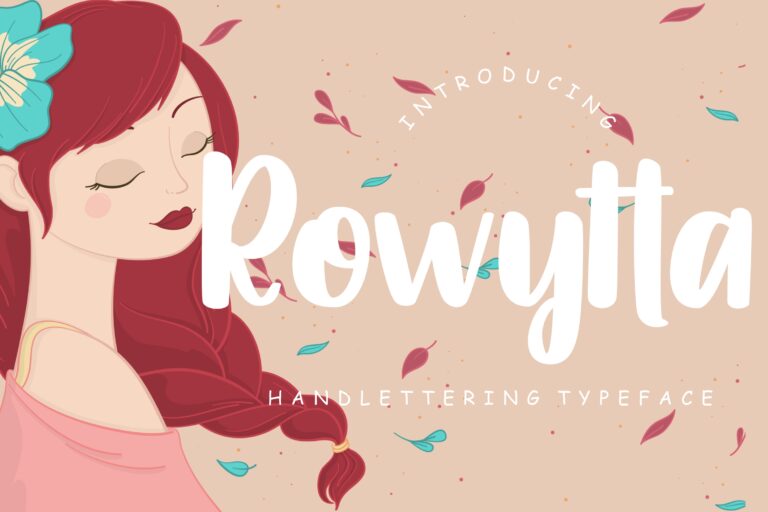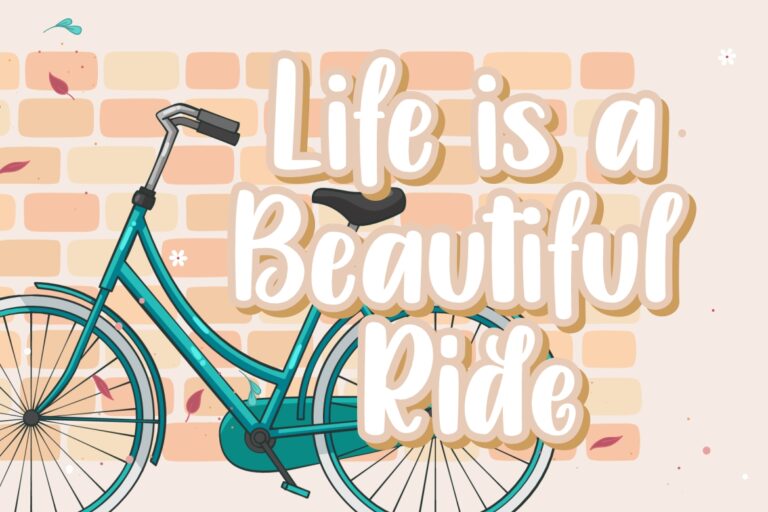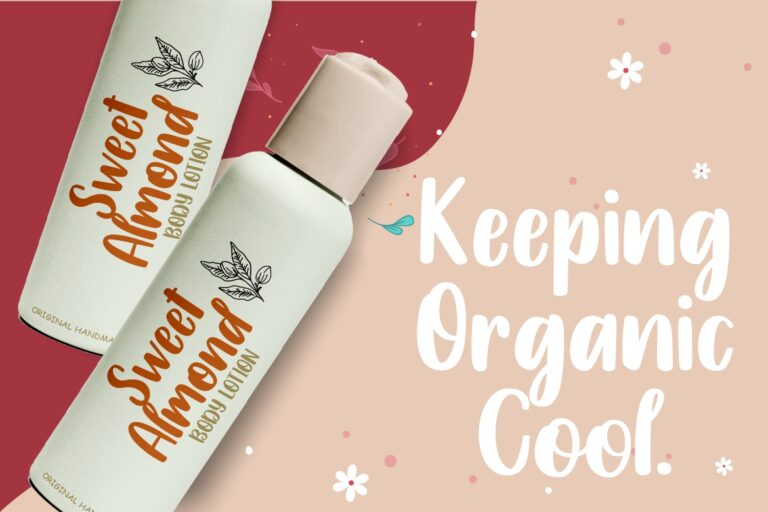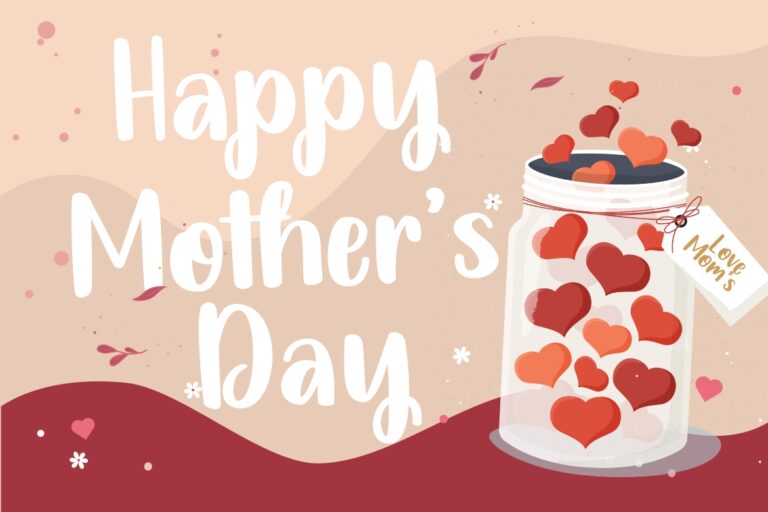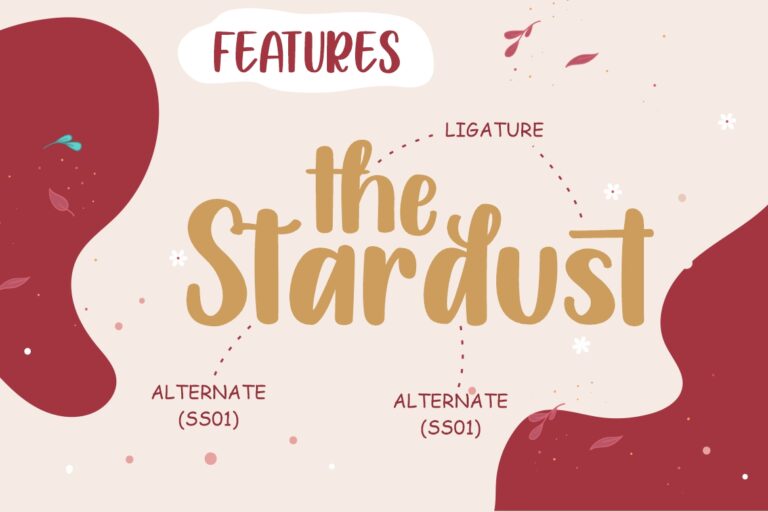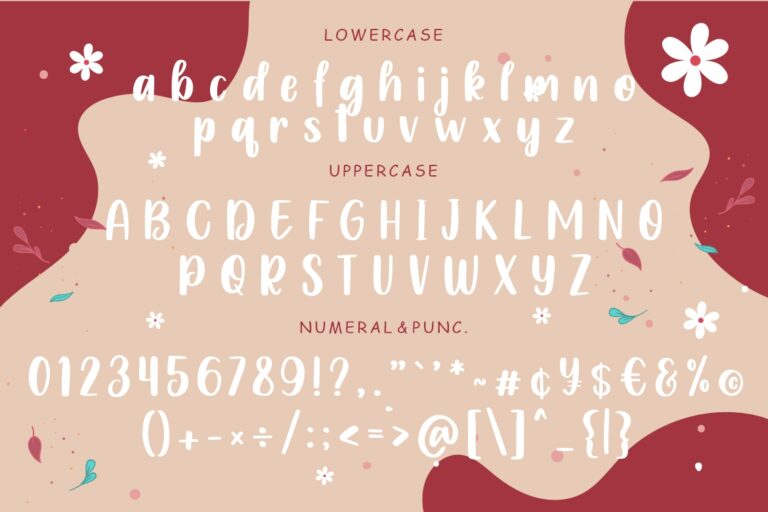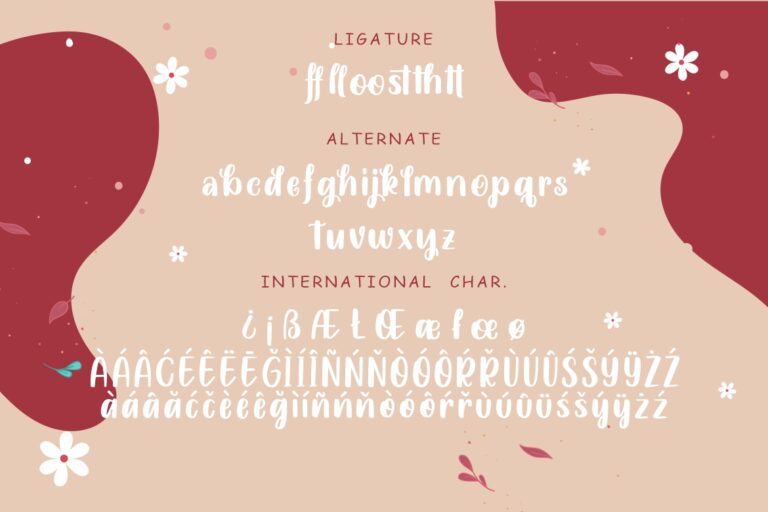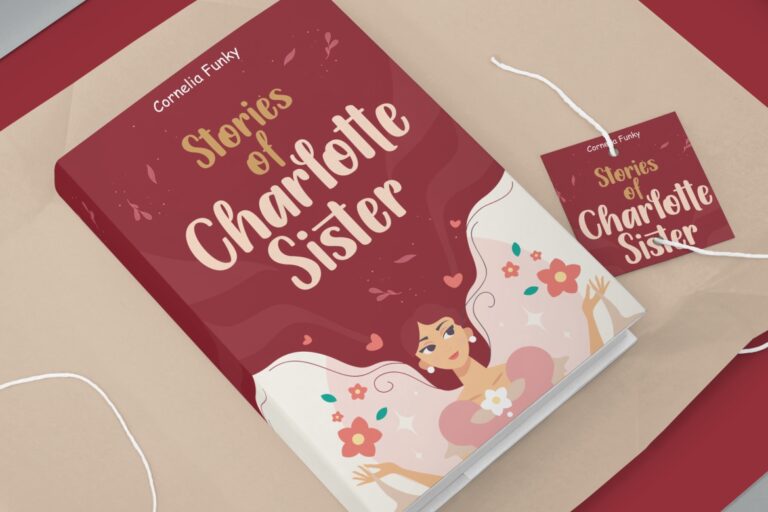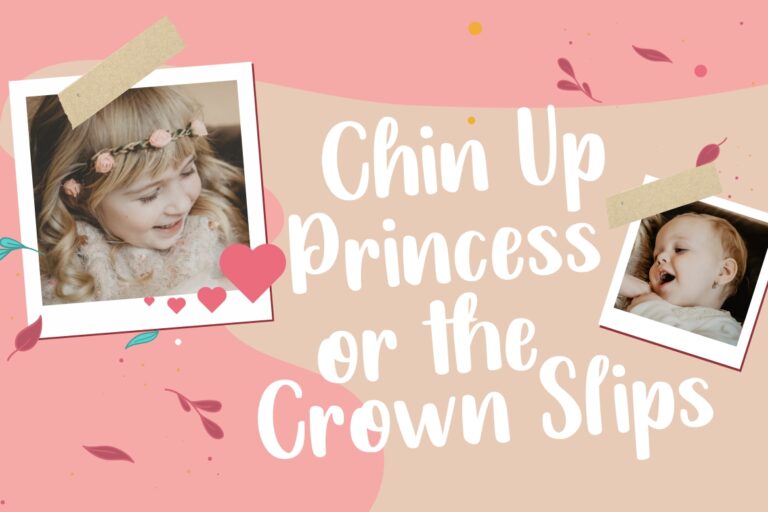
Rowytta a natural handwritten font with stylish modern calligraphy make looks elegant and classy.
Rowytta would perfect for photography, watermark, social media posts, advertisements, logos & branding, invitation, product designs, label, stationery, wedding designs, product packaging, special events or anything that need handwriting taste.
- Ligatur & Alternate
Rowytta Handlettering Typeface